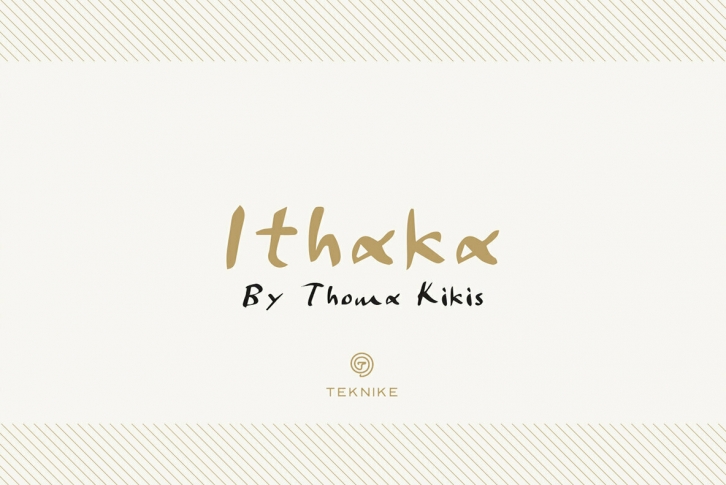
Ithaka is a display monospace handwriting font. The typeface is a distinct hand drawn font using a fountain pen quill ink style. The Ithaka name is derived from the legendary home of the hero Odysseus in Homer’s epic poem, The Odyssey (Ancient Greek: Ἰθάκα). Ithaka is great for display work, invitations, writing, books, posters, logos and headings.